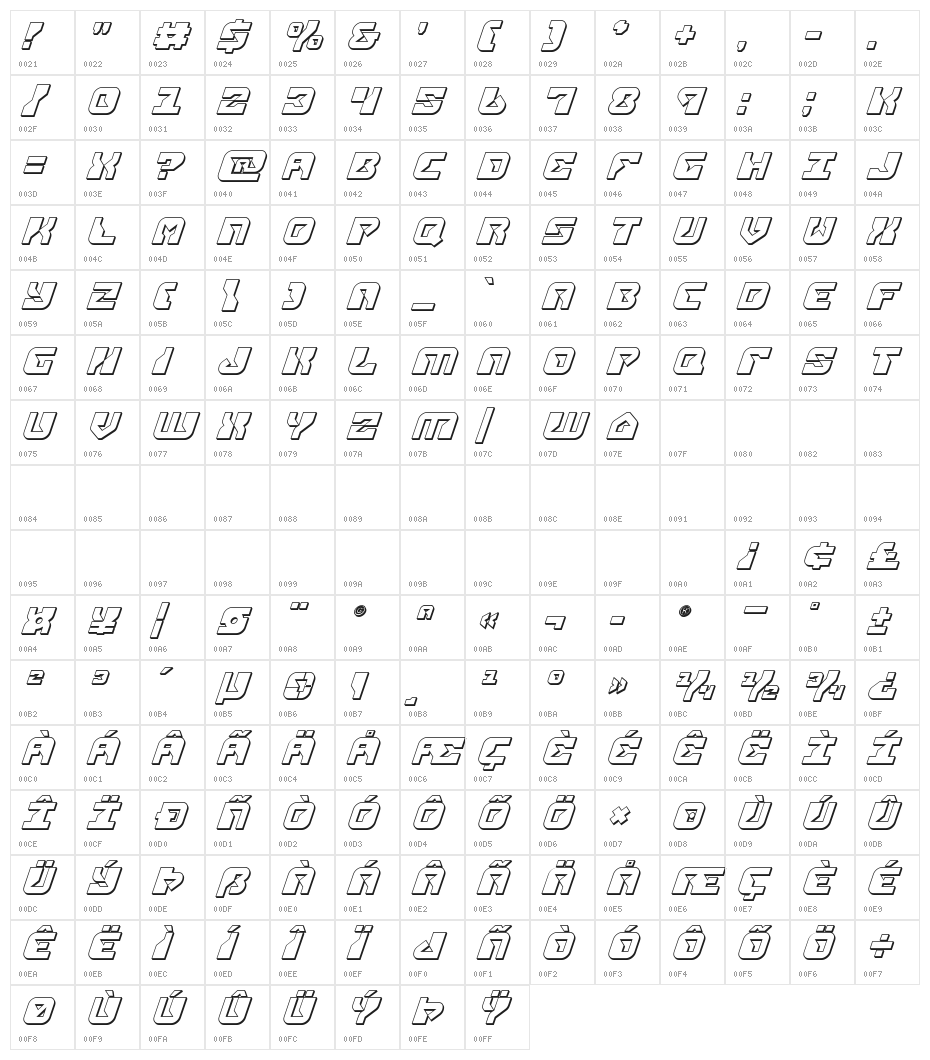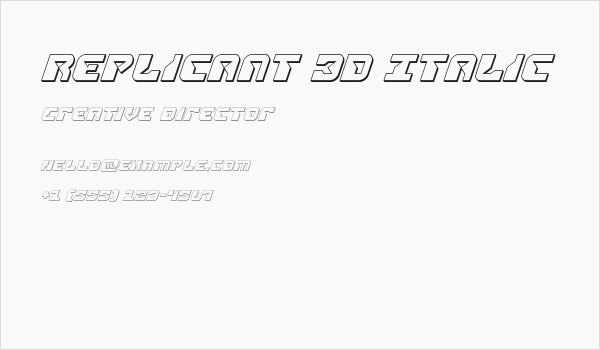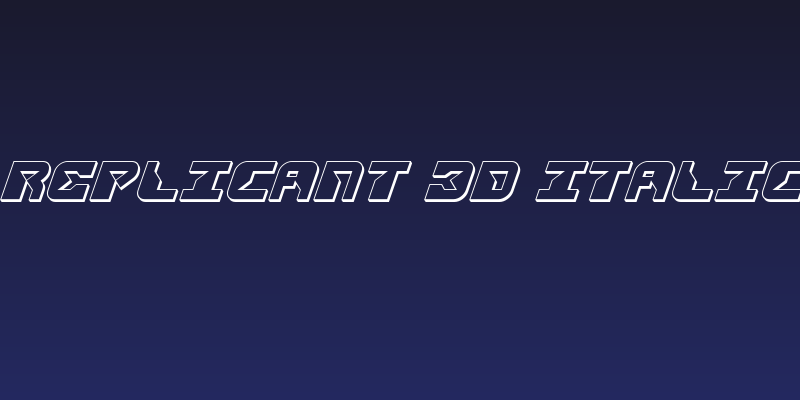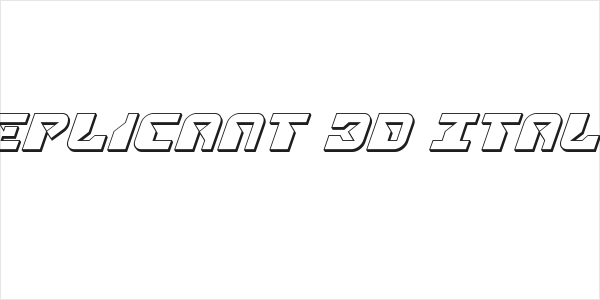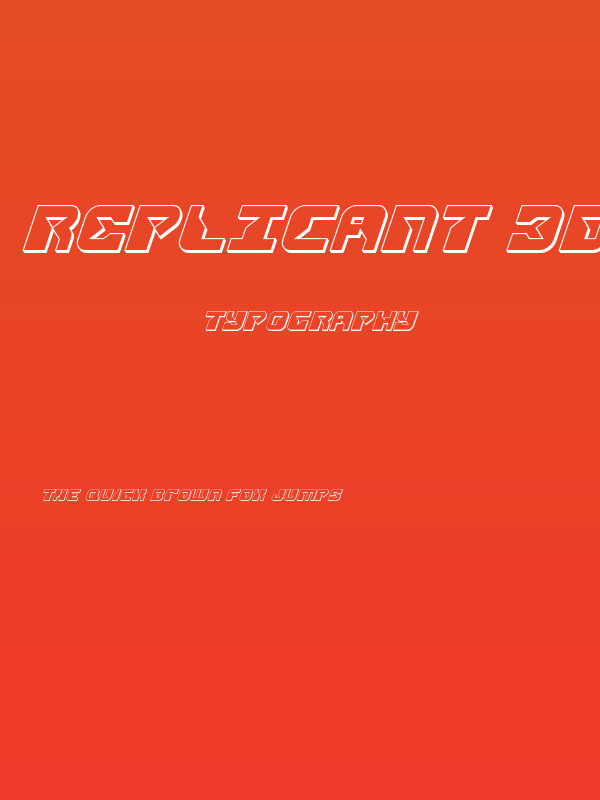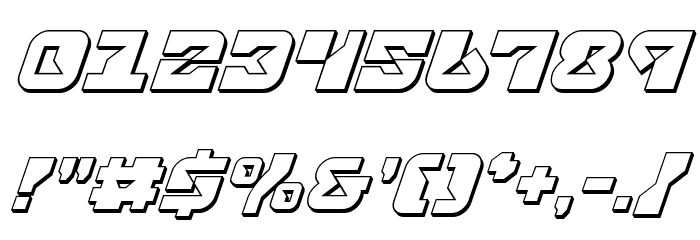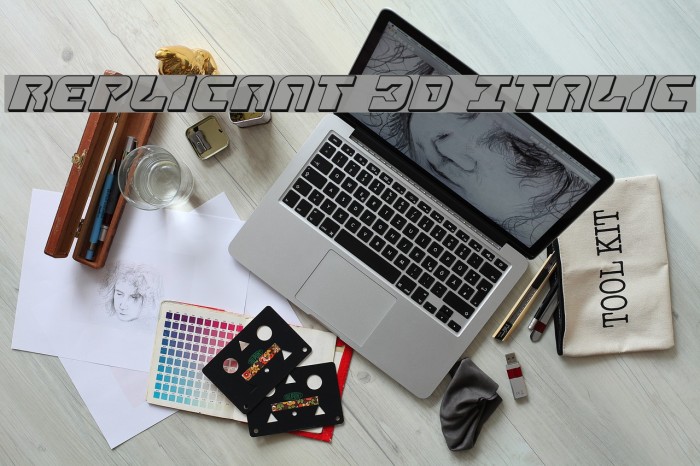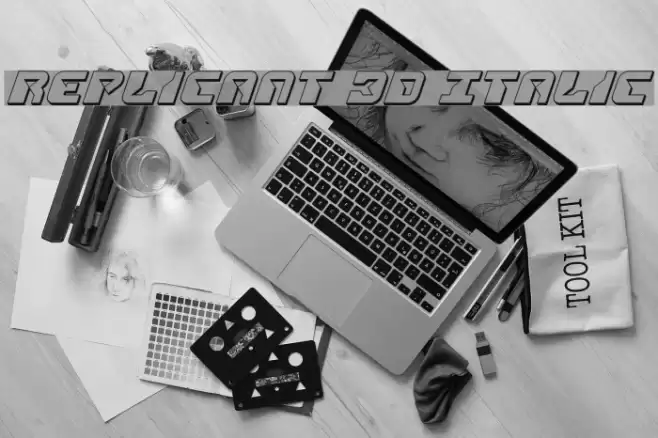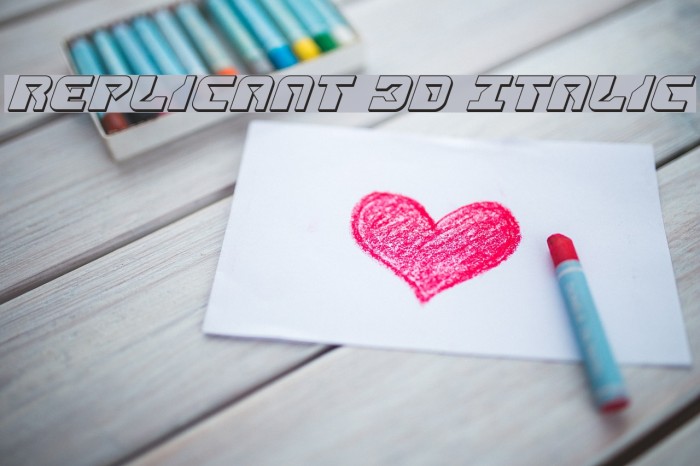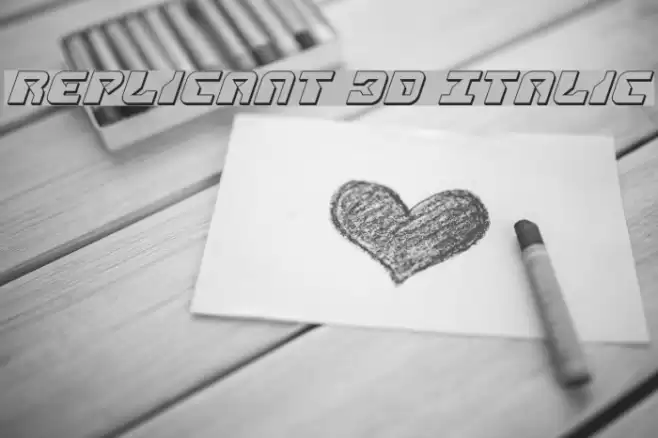
Replicant 3D Italic Font
Replicant 3D Italic Description
This font features a futuristic, three-dimensional design with a distinct italic slant. The characters are bold and angular, with a geometric structure that gives them a modern, tech-inspired appearance. The 3D effect is achieved through the use of outlines and shading, creating a sense of depth and dynamism. Each letter and number is crafted with precision, maintaining a consistent style throughout. The font includes a full set of uppercase and lowercase letters, numbers, and a variety of special characters, making it versatile for various design needs.
| Proposed Projects | Ideal for sci-fi themed projects, technology branding, video game titles, and modern posters. |